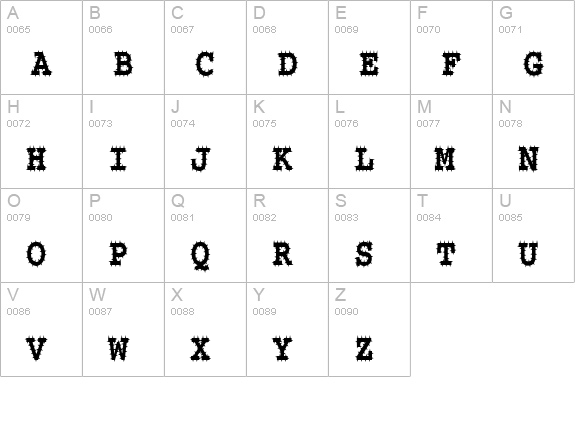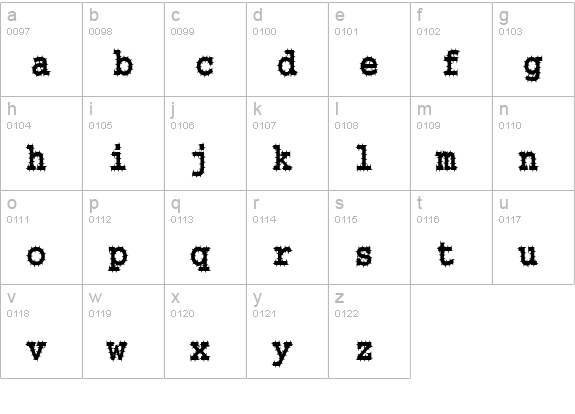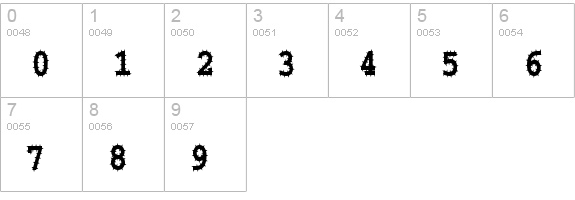
ChiselSpikedCondensed Normal Font Details
ChiselSpikedCondensed Normal is the standard, neutral variant in the ChiselSpikedCondensed typeface family \xE2\x80\x94 well suited to general body text, paragraphs, and standard typographic work.
ChiselSpikedCondensed Normal font is a striking and versatile typeface that brings a unique edge to any design project. Its sharp, chiseled edges and condensed letterforms make it perfect for creating bold headlines, logos, and branding materials. The spiked details add a touch of attitude and modernity to the overall aesthetic. This font is not only visually captivating but also highly readable, making it suitable for both digital and print applications. Whether you're designing a poster, website, or packaging, ChiselSpikedCondensed Normal font will make your text stand out with its distinctive look. Best of all, this font is free to download at FontsMarket.com, allowing you to enhance your designs without breaking the bank. Don't miss out on the opportunity to add this eye-catching typeface to your font library today!